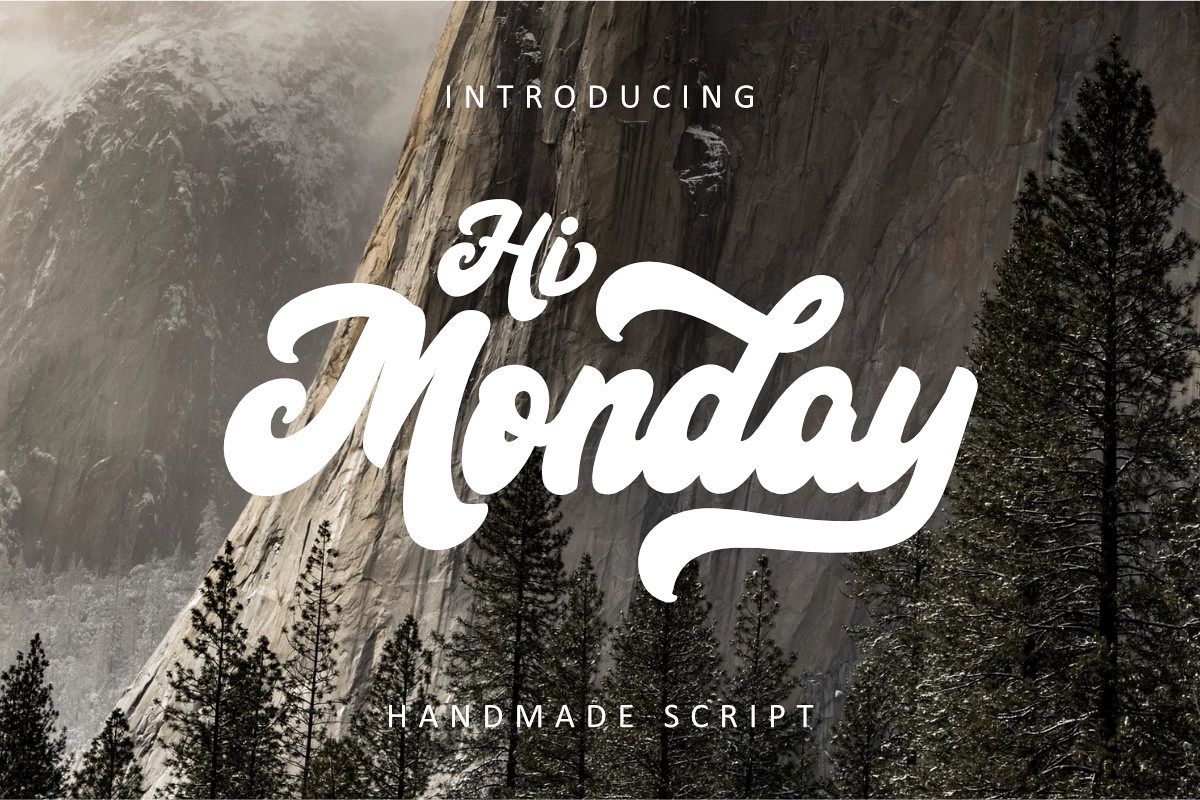
Hi Monday Script
Hi Monday Script is a modern calligraphy font. Hi Monday a beautiful for signatures, logos, wedding invitations, website, headline, letterheads, nameplate, labels, bulletins, posters, quotes, badges, branding, greeting Cards, etc. and all project design other. Hi Monday comes with elegant style. It contains a full set of uppercase letters, lowercase letters, alternate lowercase letters, a large range of punctuation, and numerals.